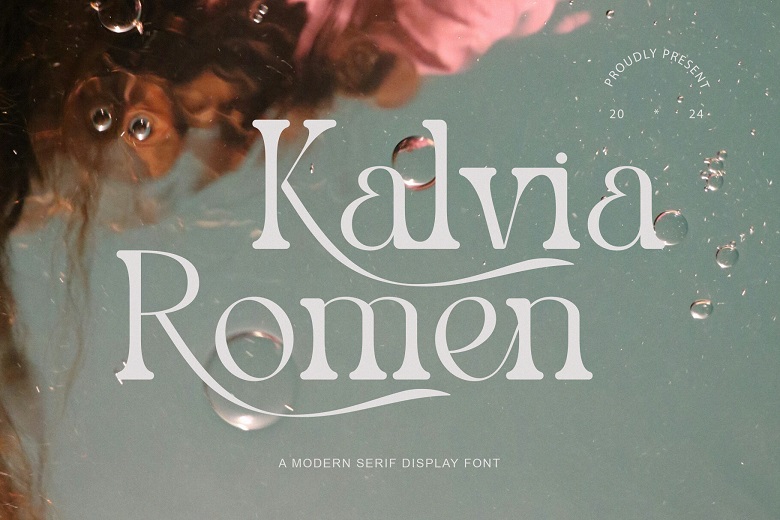
Kalvia Romen Font
Introducing Kalvia Romen: An up to date, clean looking serif typeface. Kalvia Romen will make your project relfecting its contemporary and classy look like websites, logos, branding identites, social media quotes, weddings invitations and much more.
Kalvia Romen has stylish and elegant capital letters from A to Z along with ligatures and other variations, making it become a beautiful font that can be fit in any large scale project that you desire. This font is available in PUA encoded which implies that you can use all of the great handles and handles without a problem!
Kalvia Romen Serif Font